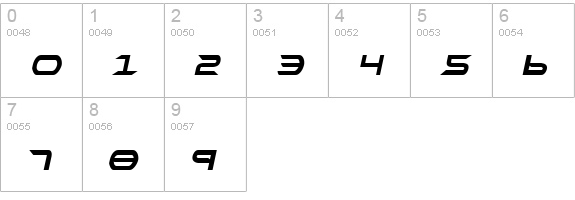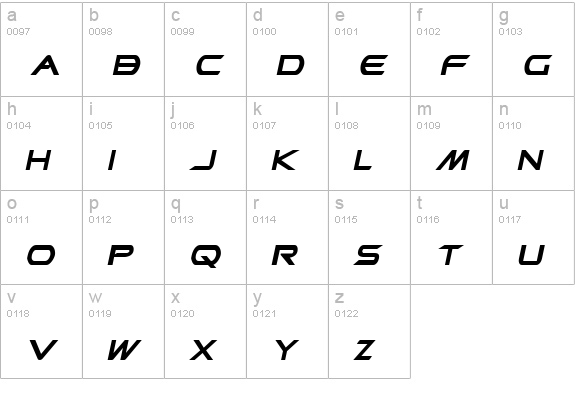
Promethean Bold Italic is a strong, high-contrast, italic variant in the Promethean typeface family \xE2\x80\x94 well suited to headlines, attention-grabbing titles, and strong calls-to-action.
The Promethean Bold Italic font is a striking and dynamic typeface that exudes a sense of strength and modernity. Its bold and italicized characters command attention and make a bold statement in any design project. With its clean lines and sharp edges, this font is perfect for creating eye-catching headlines, logos, and branding materials. What sets Promethean Bold Italic apart is not just its aesthetic appeal, but also its versatility. Whether used in print or digital media, this font adapts effortlessly to different design contexts, adding a touch of sophistication and style. Its sleek, contemporary look makes it a popular choice for designers looking to make a statement with their typography. And the best part? Promethean Bold Italic is available for free download at FontsMarket.com! This means you can easily access this high-quality font without breaking the bank. So why wait? Download Promethean Bold Italic today and elevate your design projects with its bold and stylish presence.